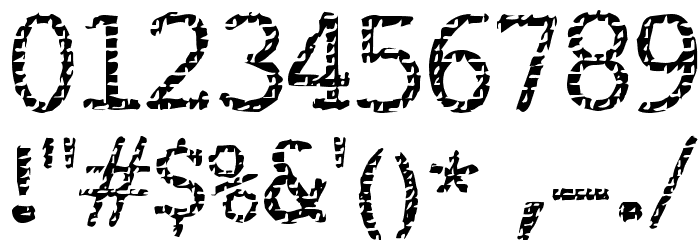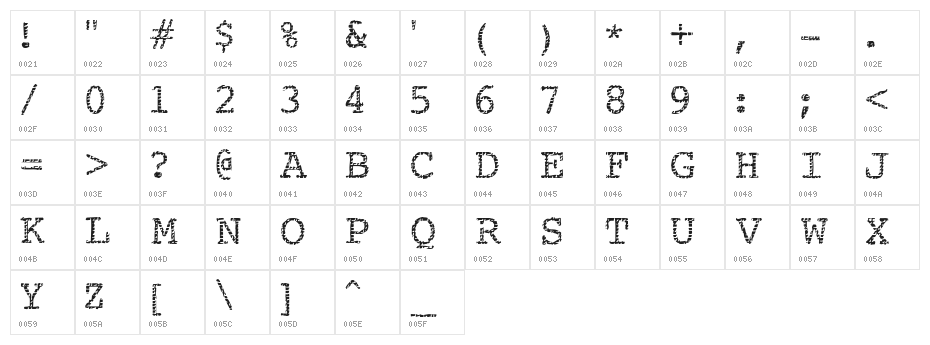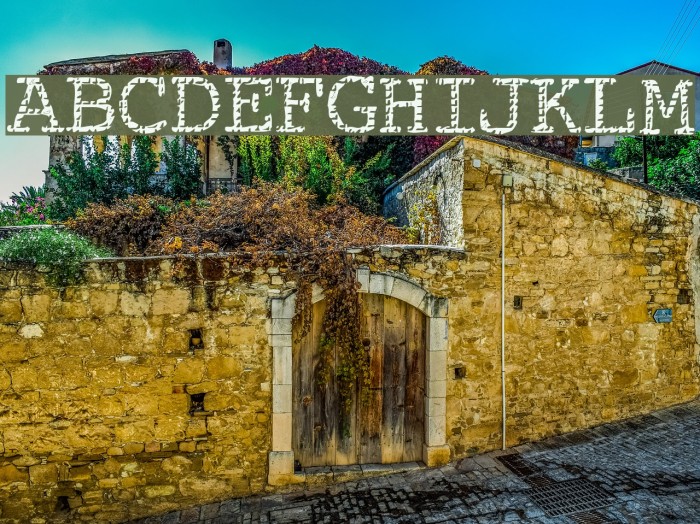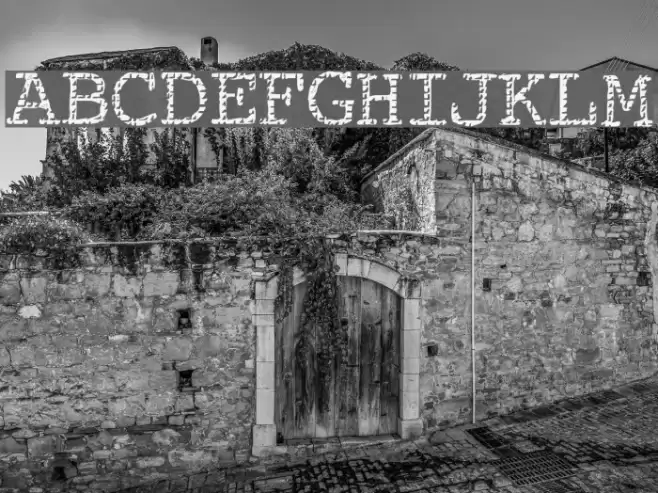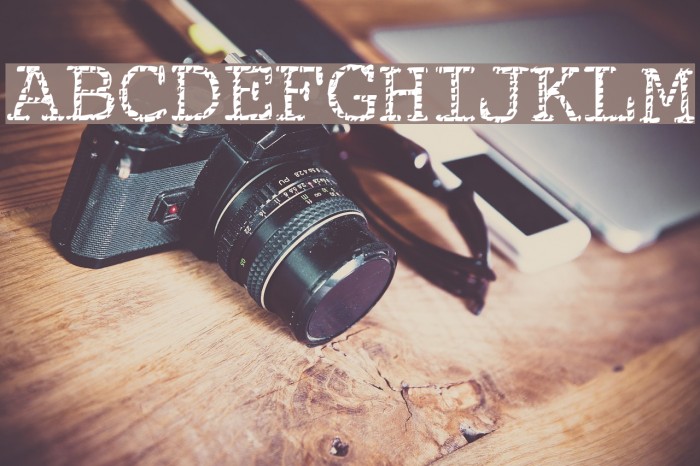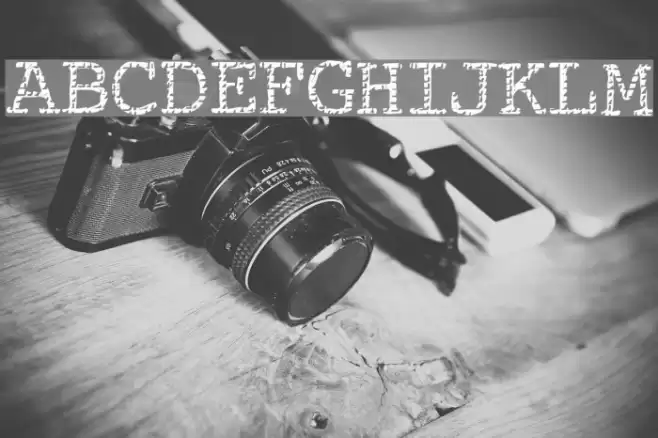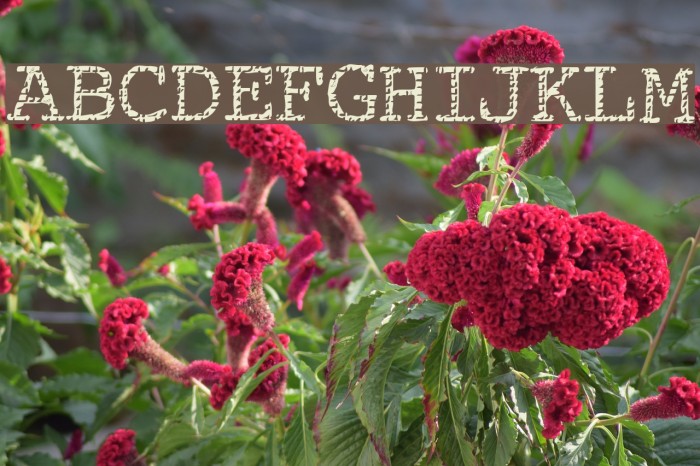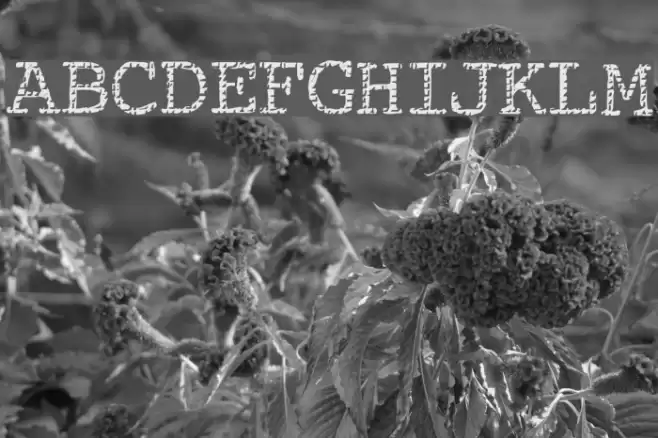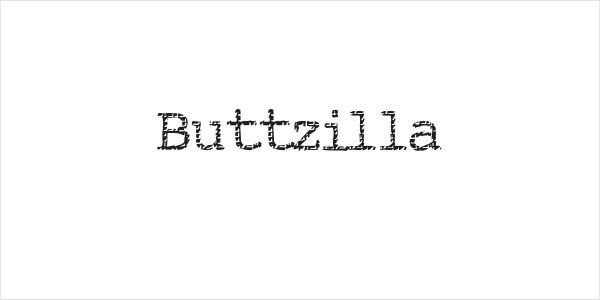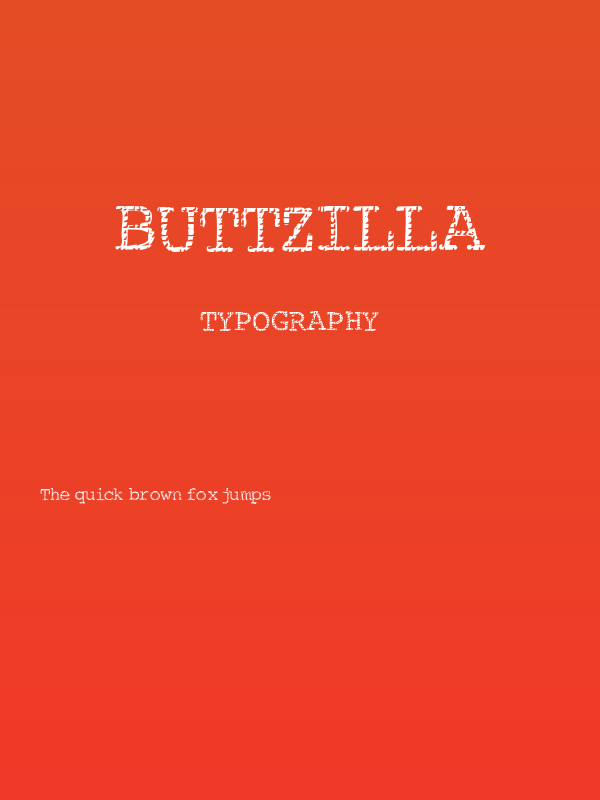
Buttzilla Font
Buttzilla Description
This font features a playful and bold design with a unique pattern that resembles a stitched or patchwork effect. The letters are uppercase and lowercase, with numbers and a variety of special characters. The style is decorative, making it stand out with its textured appearance. Each character is filled with a pattern that adds depth and visual interest, making it suitable for creative and eye-catching designs. The font maintains a consistent weight throughout, with medium contrast in stroke thickness. Its quirky and artistic style makes it ideal for projects that require a fun and engaging typeface.